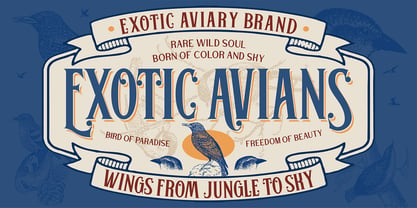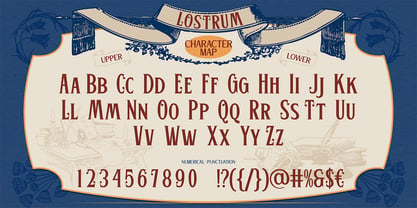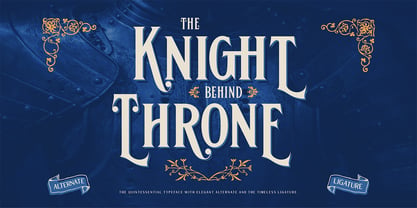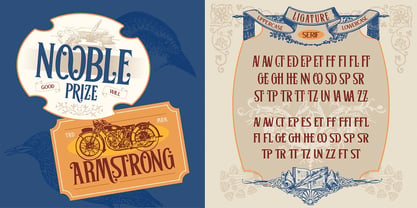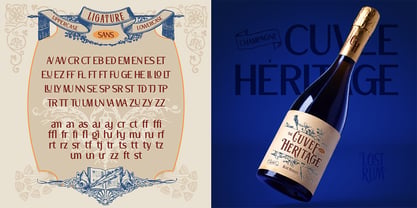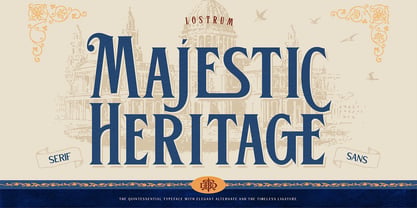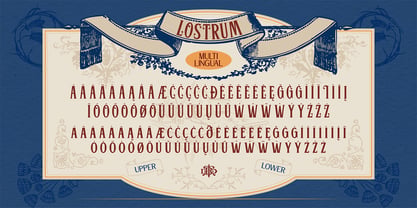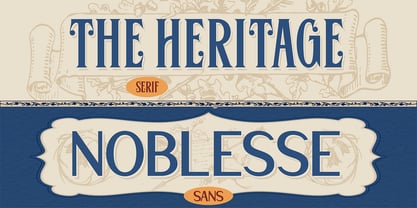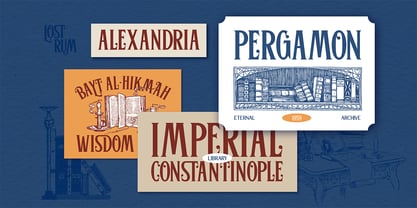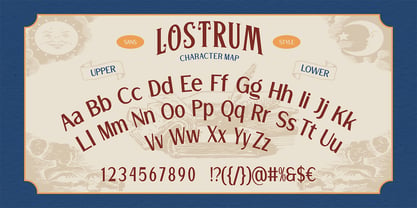
Lostrum
Die Schriftfamilie Lostrum wurde von Eric Kurniawan entworfen und von Burntilldead veröffentlicht. Lostrum enthält 2 Stile und Familienpaketoptionen. Mehr über diese Familie
Lostrum is a refined duo heritage typeface inspired by vintage signage, royal archives, and classical European typography. It combines a decorative serif with a clean, noble sans serif — giving you the perfect balance between tradition and modern clarity. Designed with elegant curves, dramatic swashes, and timeless proportions, Lostrum brings a sense of history, authority, and craftsmanship to any project. This font is ideal for branding that wants to feel premium, intellectual, and heritage-driven without looking outdated. Lostrum works beautifully for large headlines and statement logos. The serif version adds ornamental character and old-world charm, while the sans version gives you a clean, noble foundation for modern compositions. If you’re looking for a typeface that feels like it belongs in an ancient library, royal archive, or premium tailor shop — Lostrum is your signature. Perfect For: Luxury branding, Vintage logo design, Book covers & editorial layouts, Heritage-inspired packaging, Café & tailor signage, Poster & headline typography, Historical, medieval, or classical themes Features: A - Z set (Uppercase & Lowercase), Number, Punctuation, Alternates, Ligatures, Multilingual